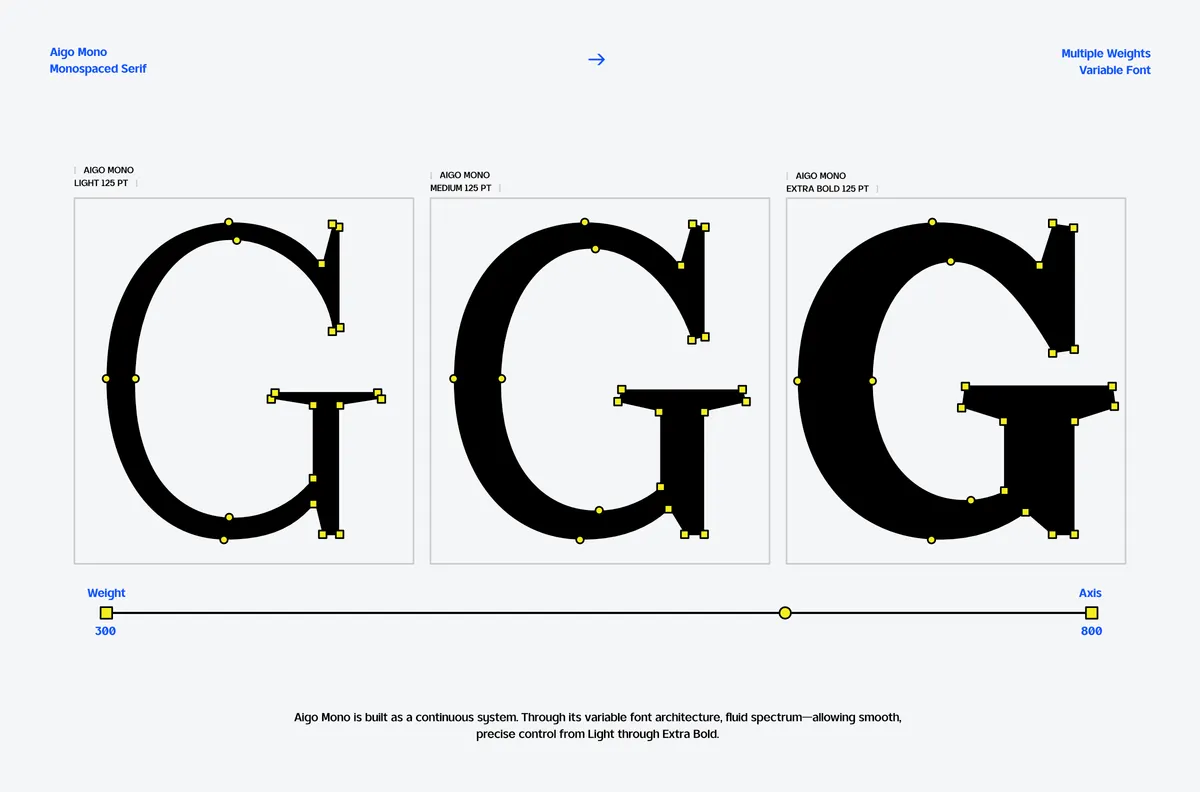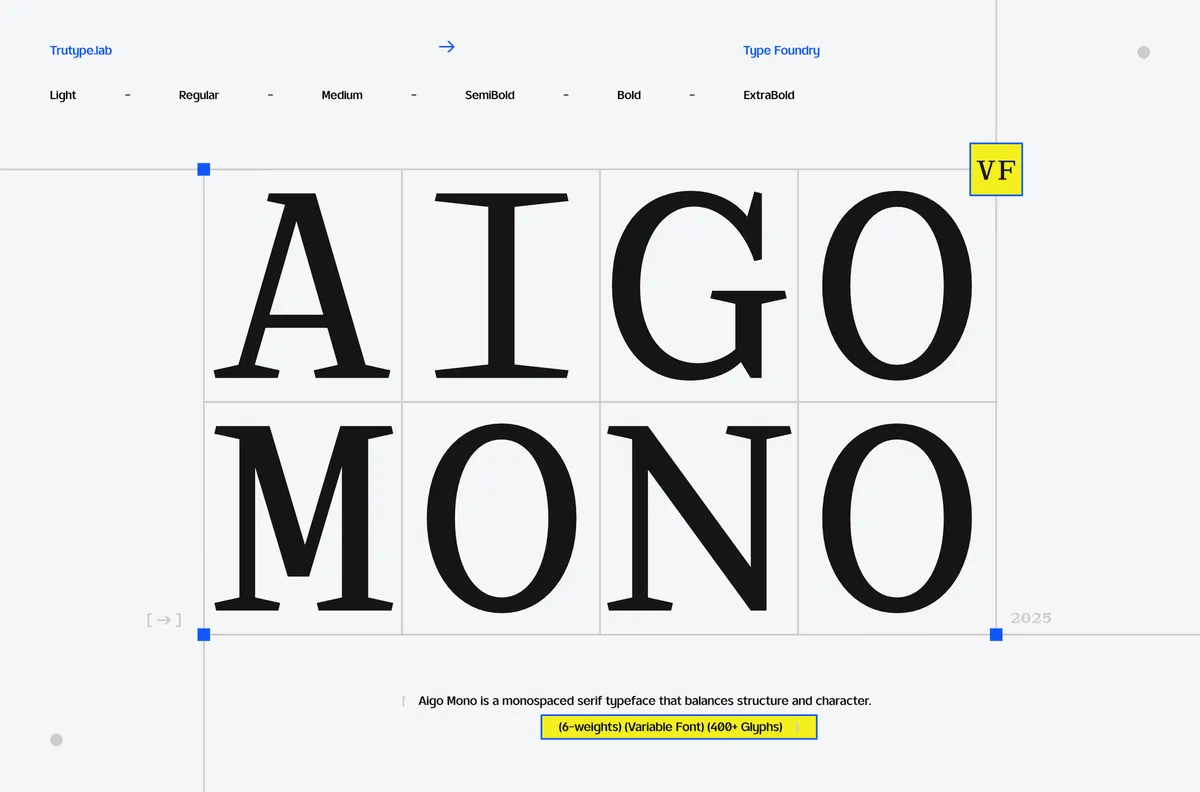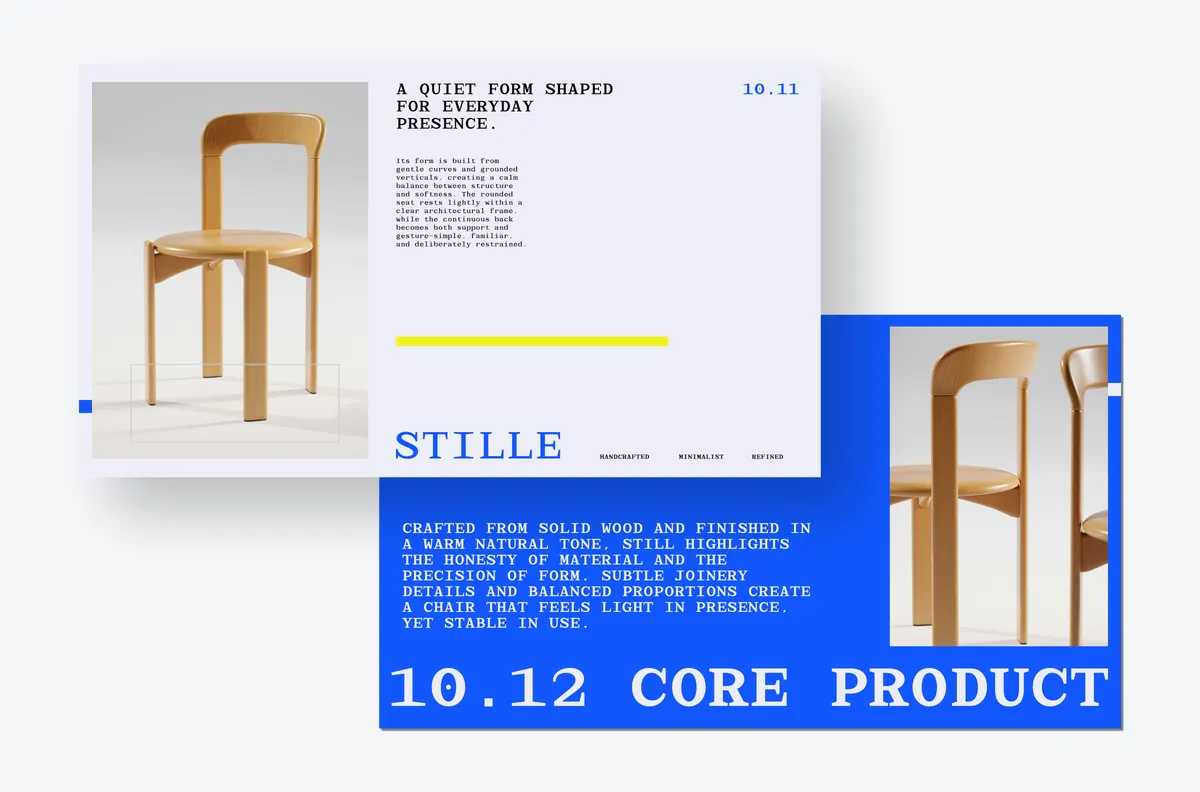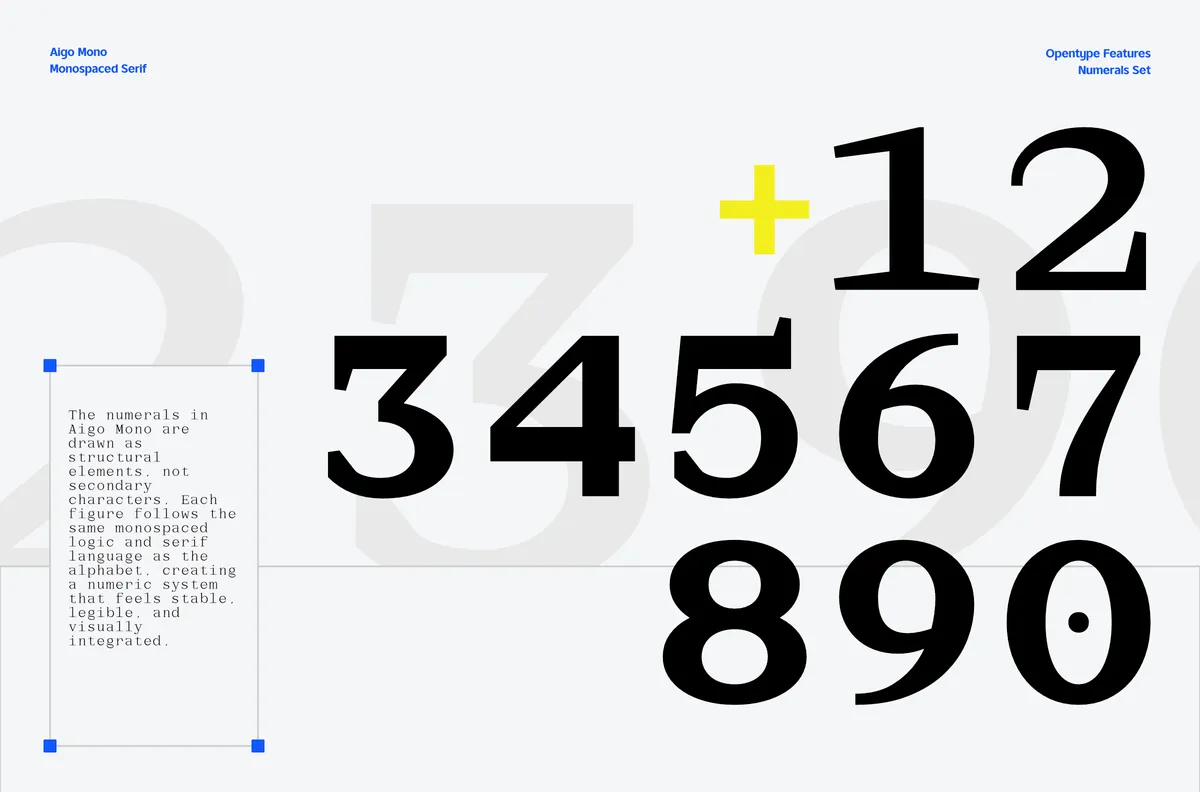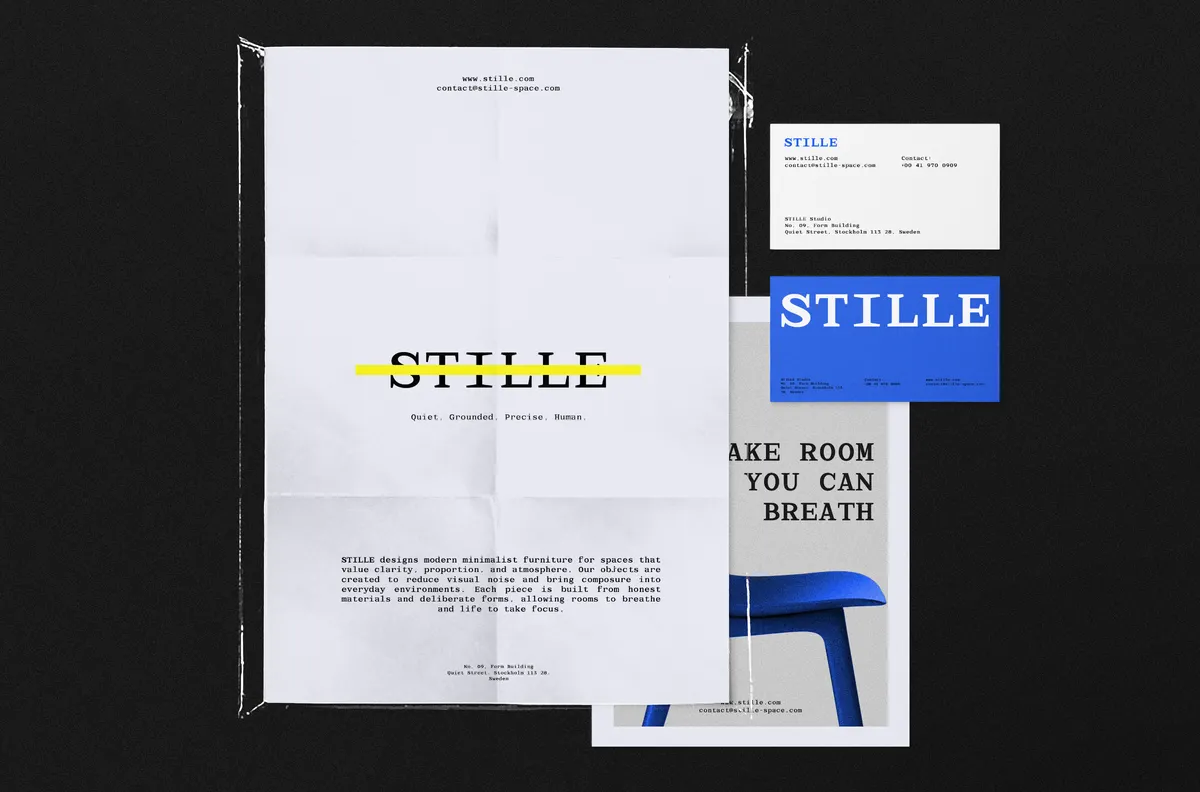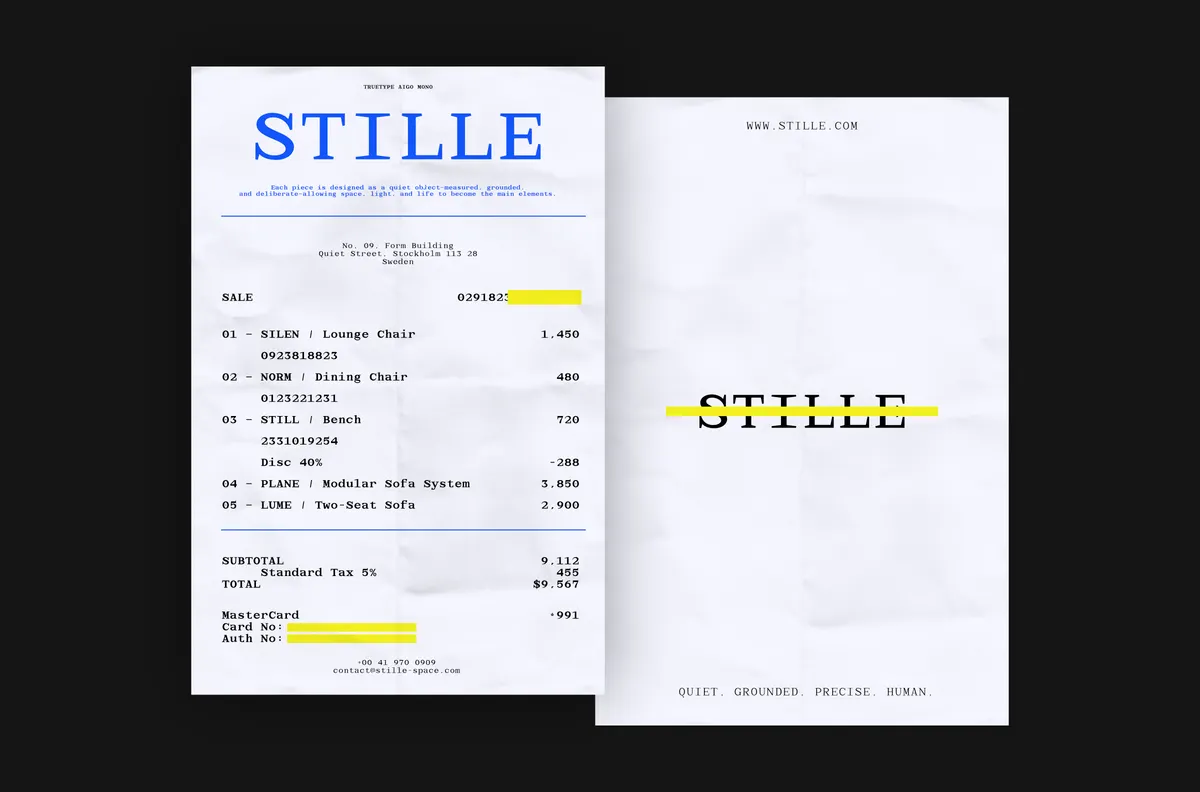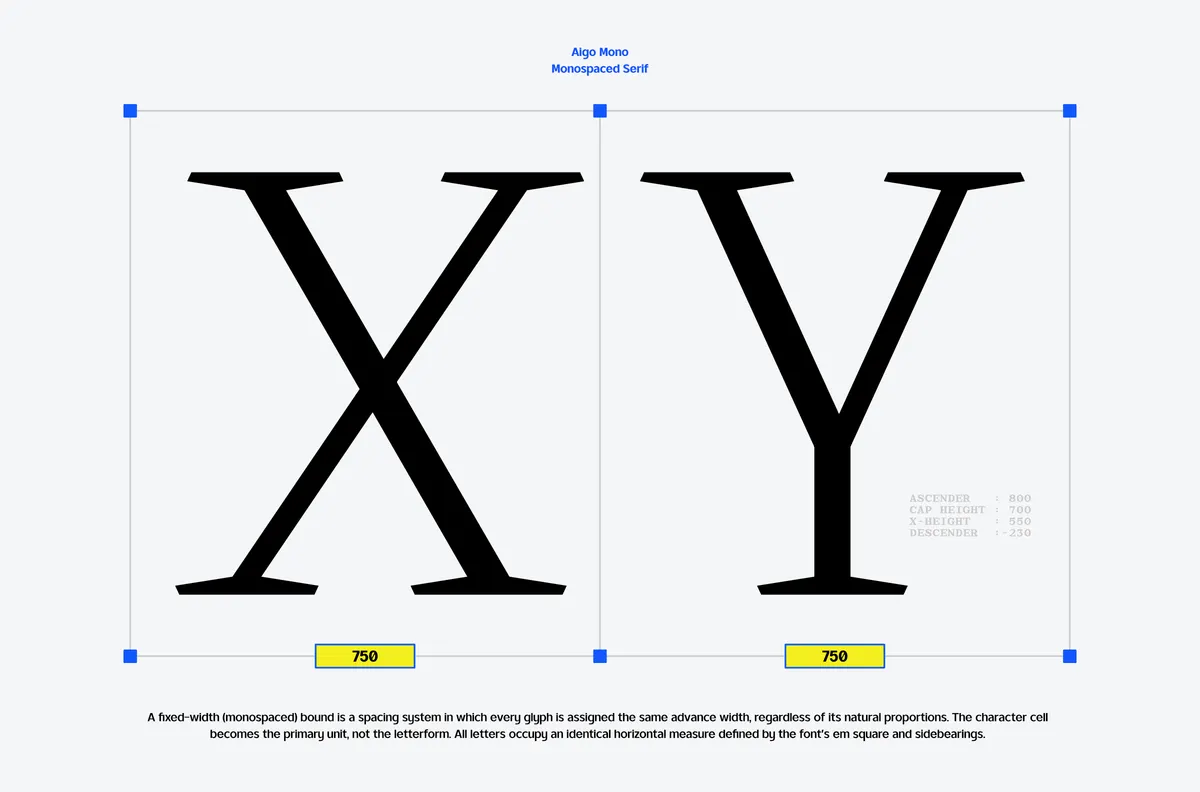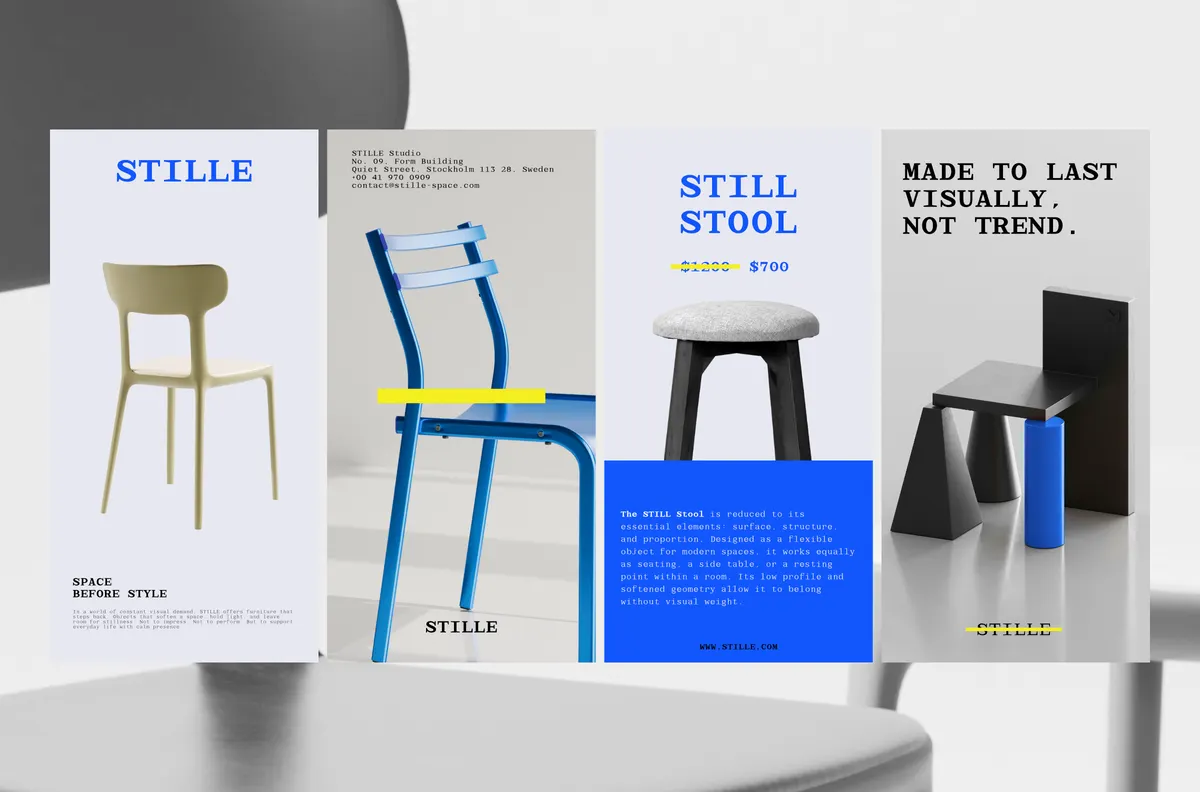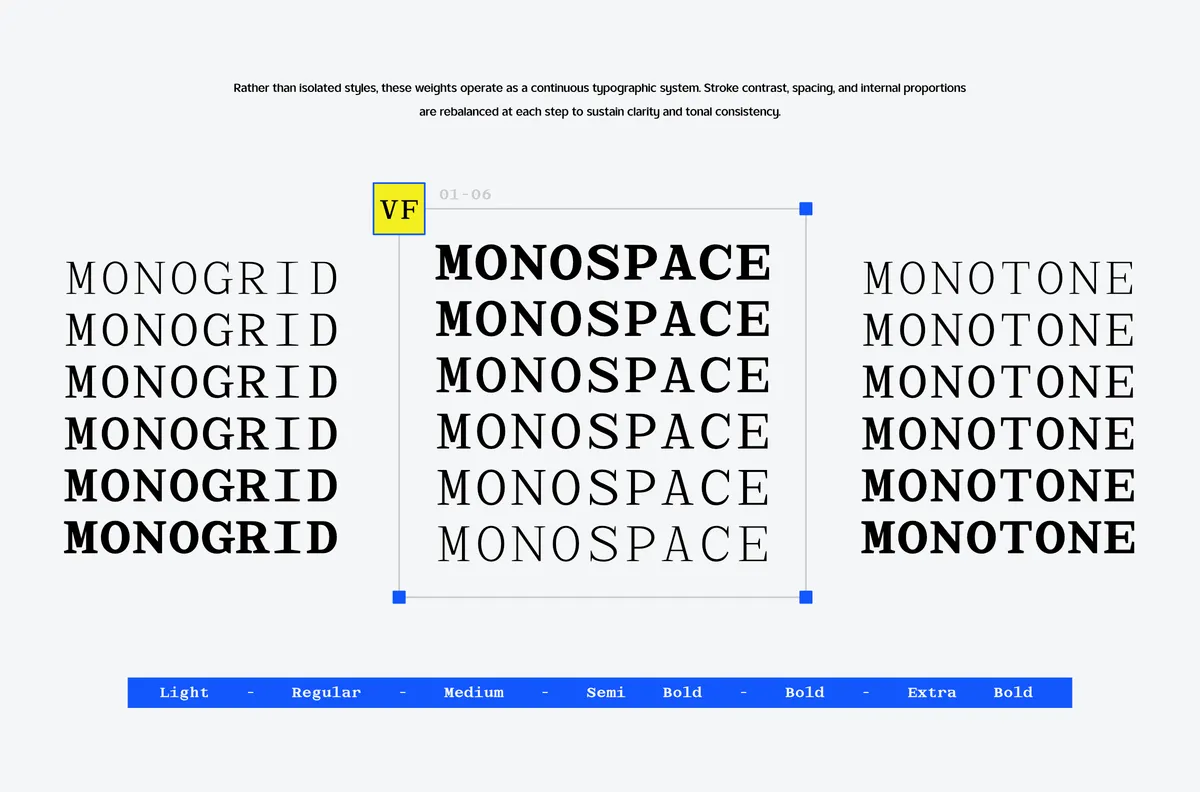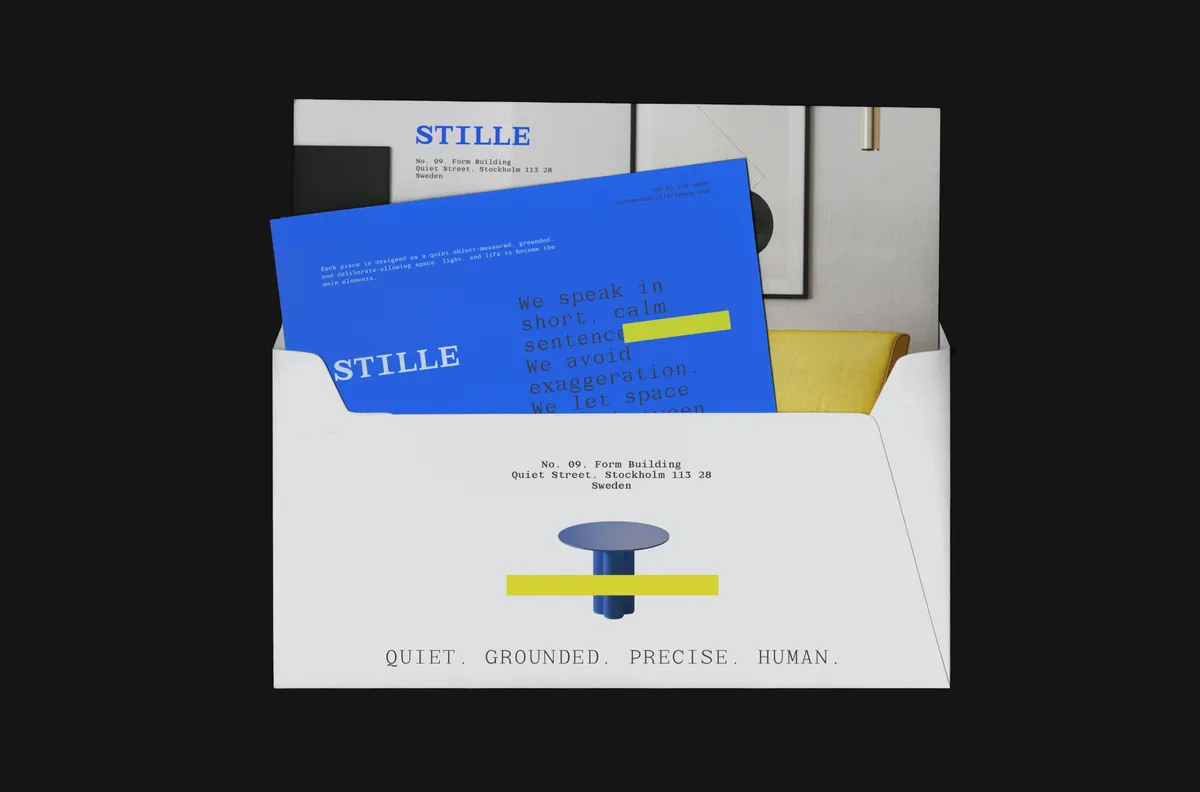
TRT Aigo Mono Monospace Serif Type
Aigo Mono takes its rhythm from classic monospace and serif typefaces: a fixed-width grid underneath every glyph, bracketed serif terminals, calm stroke contrast. That combination keeps the structure from reading mechanical. Six weights move from a light, quiet cut through a dense Extra Bold, all built on the same cell so proportions hold steady as the weight grows heavier. A variable font file carries the entire 300–800 range in one place, including the step up to Extra Bold.
Alternate forms on select uppercase and lowercase characters add personality. The core structure stays legible enough for long-form and interface text. It reads best where that quiet, grid-built rhythm matters most: technical documentation, interface type, and systems-driven identity work. Use it for UI labels, spec sheets, data tables, terminal-inspired branding, and editorial captions.
- 6 styles: Light, Regular, Medium, SemiBold, Bold, Extra Bold;
- uppercase & lowercase;
- numerals, punctuation & symbols;
- stylistic alternates on select uppercase and lowercase characters, superscript figures, case-sensitive forms;
- multilingual support.